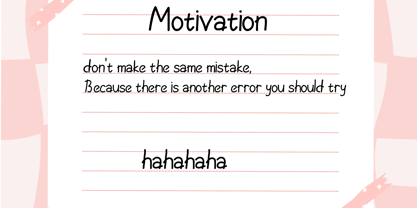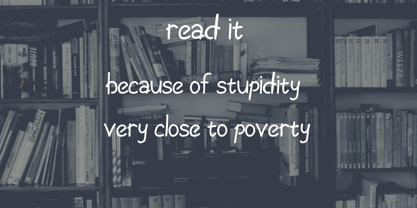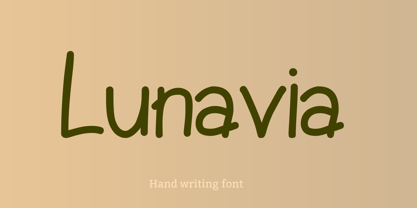
Lunavia
by Eroane Creative
The Lunavia Font Family was designed by Erick Rismawan and published by Eroane Creative. Lunavia contains 1 styles. More about this family
Lunavia — Handcrafted Casual Script Font
Lunavia is a beautifully handcrafted script font that captures the effortless charm of casual handwriting. Designed with attention to detail and smooth letterforms, Lunavia is perfect for adding a personal, natural touch to your creative projects.
This font is ideal for branding, social media graphics, product packaging, quotes, wedding invitations, and editorial design. Lunavia blends clean curves and playful elegance to ensure readability while maintaining a handwritten feel that stands out in any context.
Crafted with care for both aesthetics and functionality, Lunavia supports basic Latin characters, numerals, punctuation, and essential symbols. Every glyph is adjusted for balanced spacing, smooth kerning, and visual harmony.
🔤 Features:
• Uppercase & lowercase characters
• Numerals and standard punctuation
• Symbols including bullet (•), dash (–, —), ellipsis (…)
• Left and right single quotation marks (‘ ’ ‚)
• Carefully adjusted spacing and kerning
• Multilingual support (Basic Latin only)
Designers: Erick Rismawan
Foundry: Eroane Creative
Lunavia